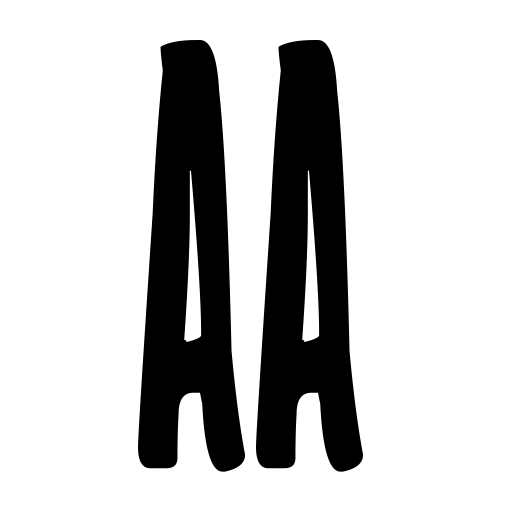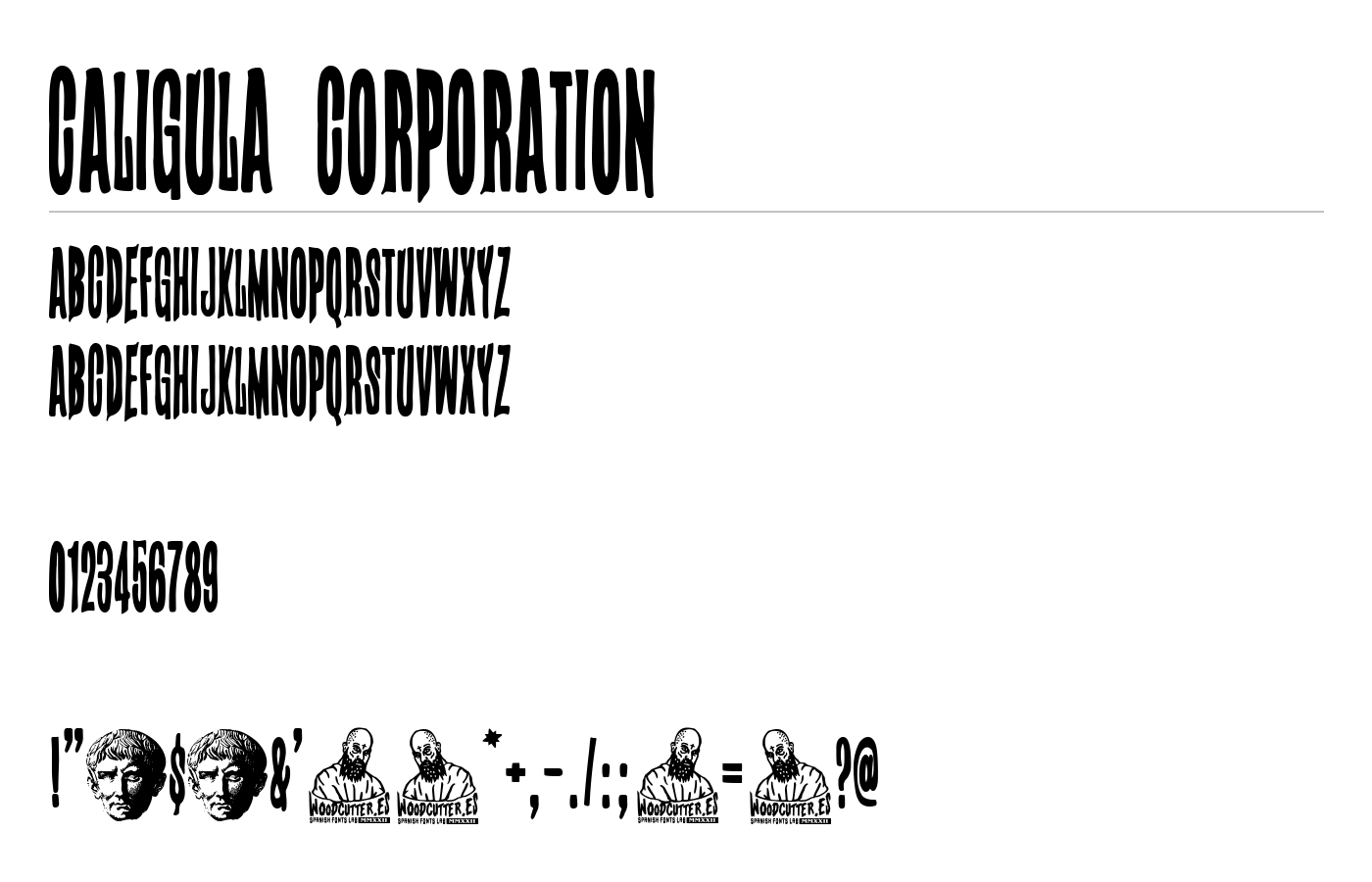
Caligula Corporation is a bold, condensed sans-serif font with a playful yet slightly eerie character, thanks to its tall, narrow letterforms and irregular, exaggerated shapes. Its high x-height and consistent stroke weight create a strong visual impact, making it ideal for attention-grabbing headlines and creative branding where a quirky, vintage-inspired vibe is desired. This font works best in posters, logos, and editorial designs that want to convey a mix of boldness and distinct personality.
Caligula Corporation Font
About Caligula Corporation Font